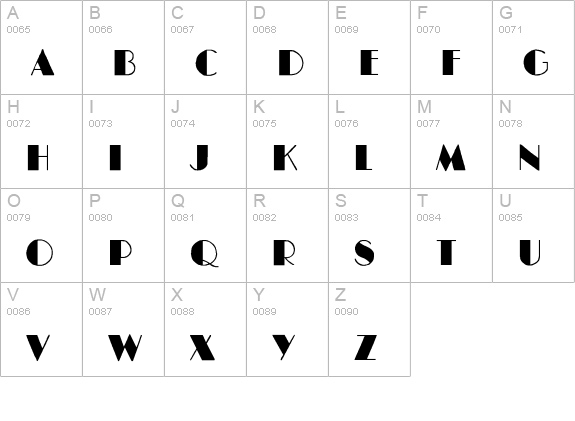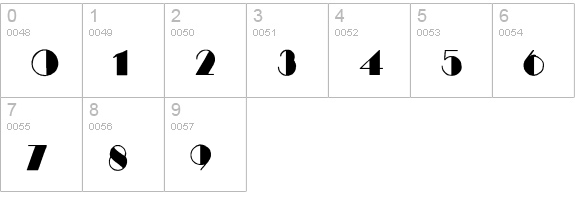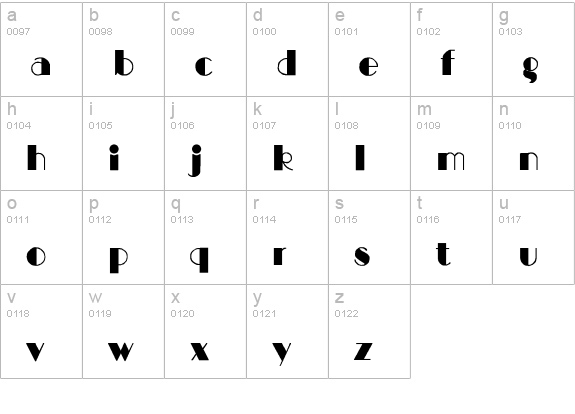
BIGCITY-Normal Font Details
BIGCITY-Normal is the standard, neutral variant in the BIGCITY typeface family \xE2\x80\x94 well suited to general body text, paragraphs, and standard typographic work.
BIGCITY-Normal font is a sleek and modern typeface that exudes sophistication and style. Its clean lines and versatile design make it perfect for a wide range of projects, from branding to editorial design. The font features a balanced combination of sharp angles and gentle curves, creating a harmonious and eye-catching appearance. What makes BIGCITY-Normal font even more appealing is that it is available for free download at FontsMarket.com. This means you can easily add this elegant typeface to your collection without any cost. Don't miss out on the opportunity to enhance your designs with this beautiful font that is both stylish and free to use. Download BIGCITY-Normal today and elevate your creative projects to new heights.